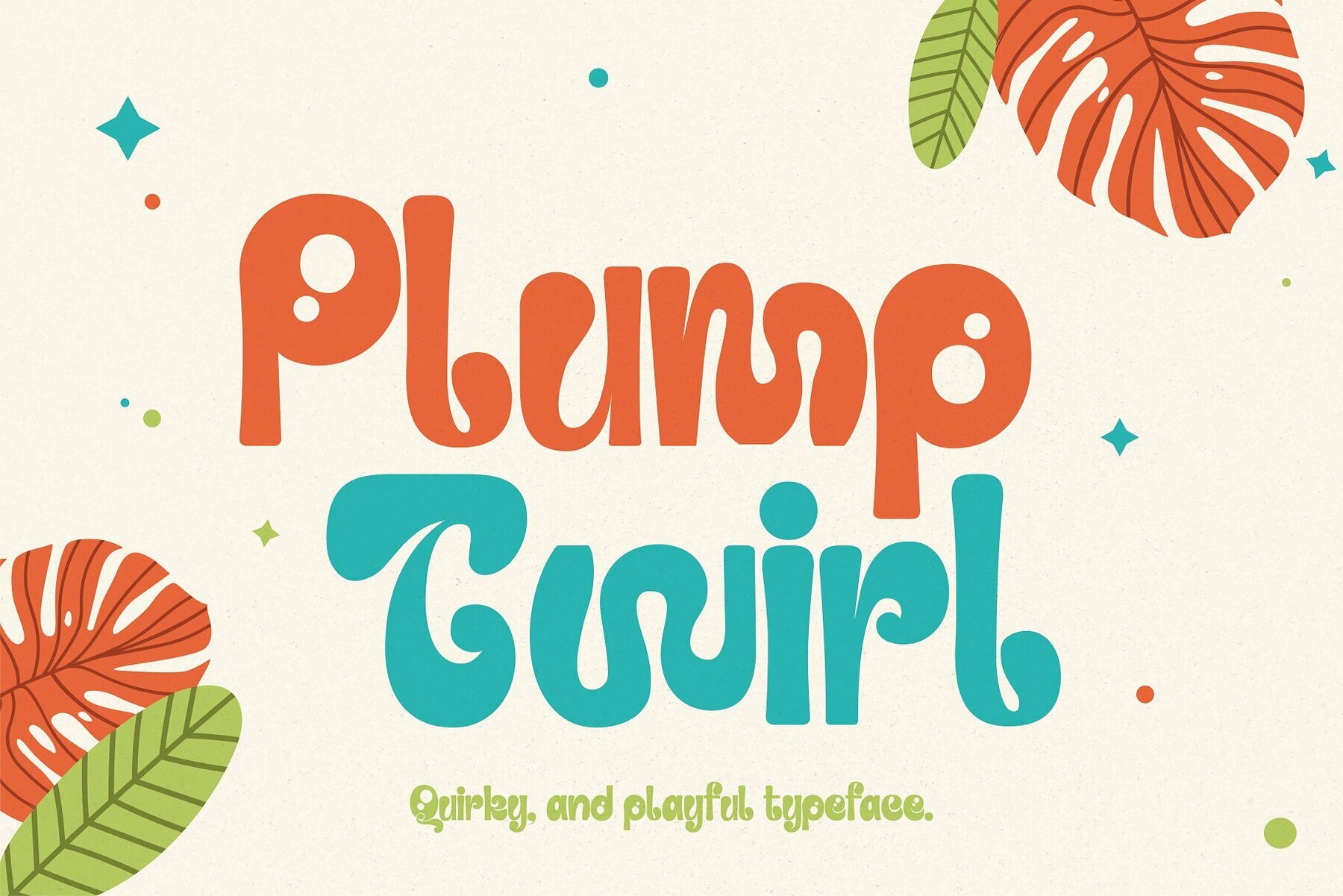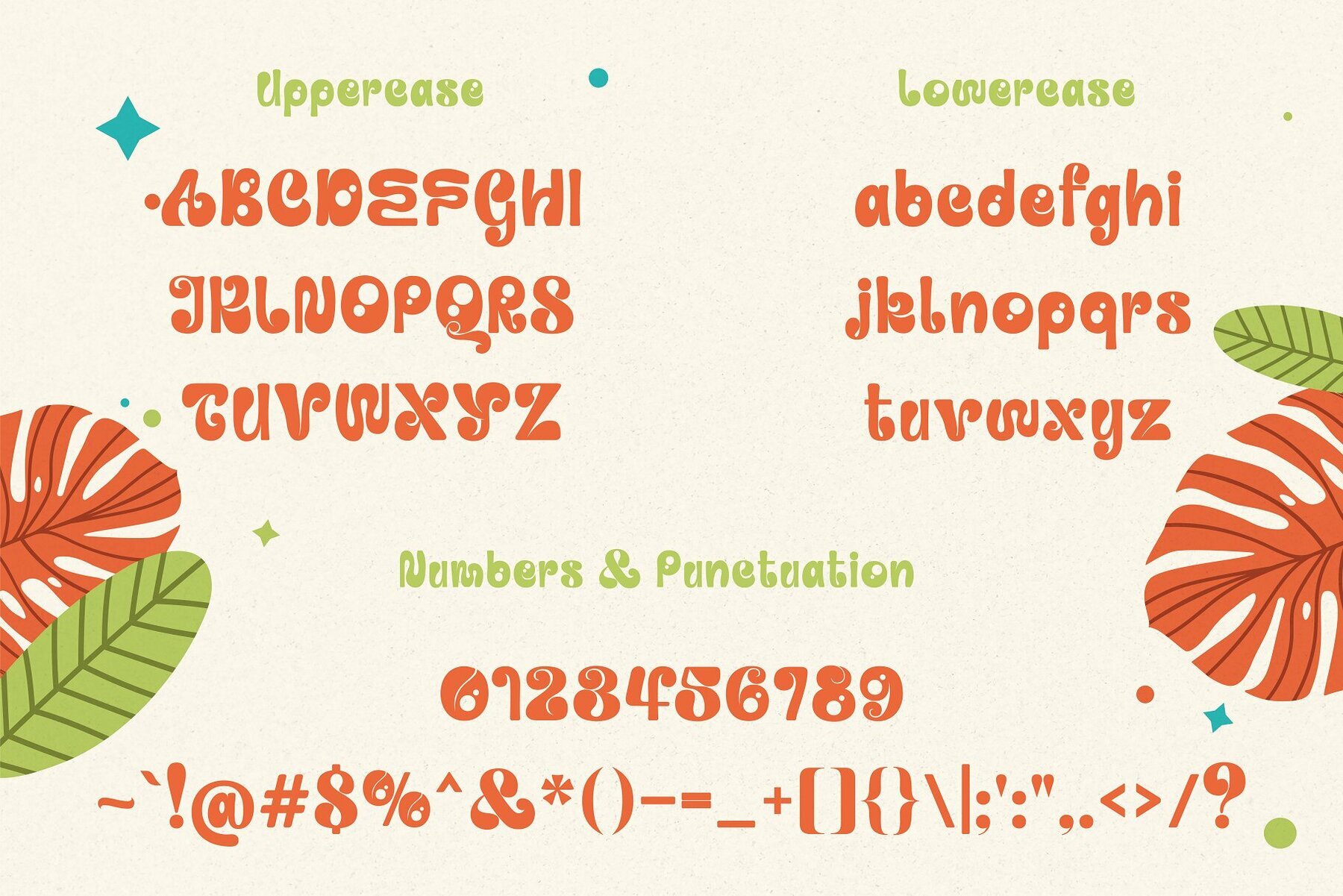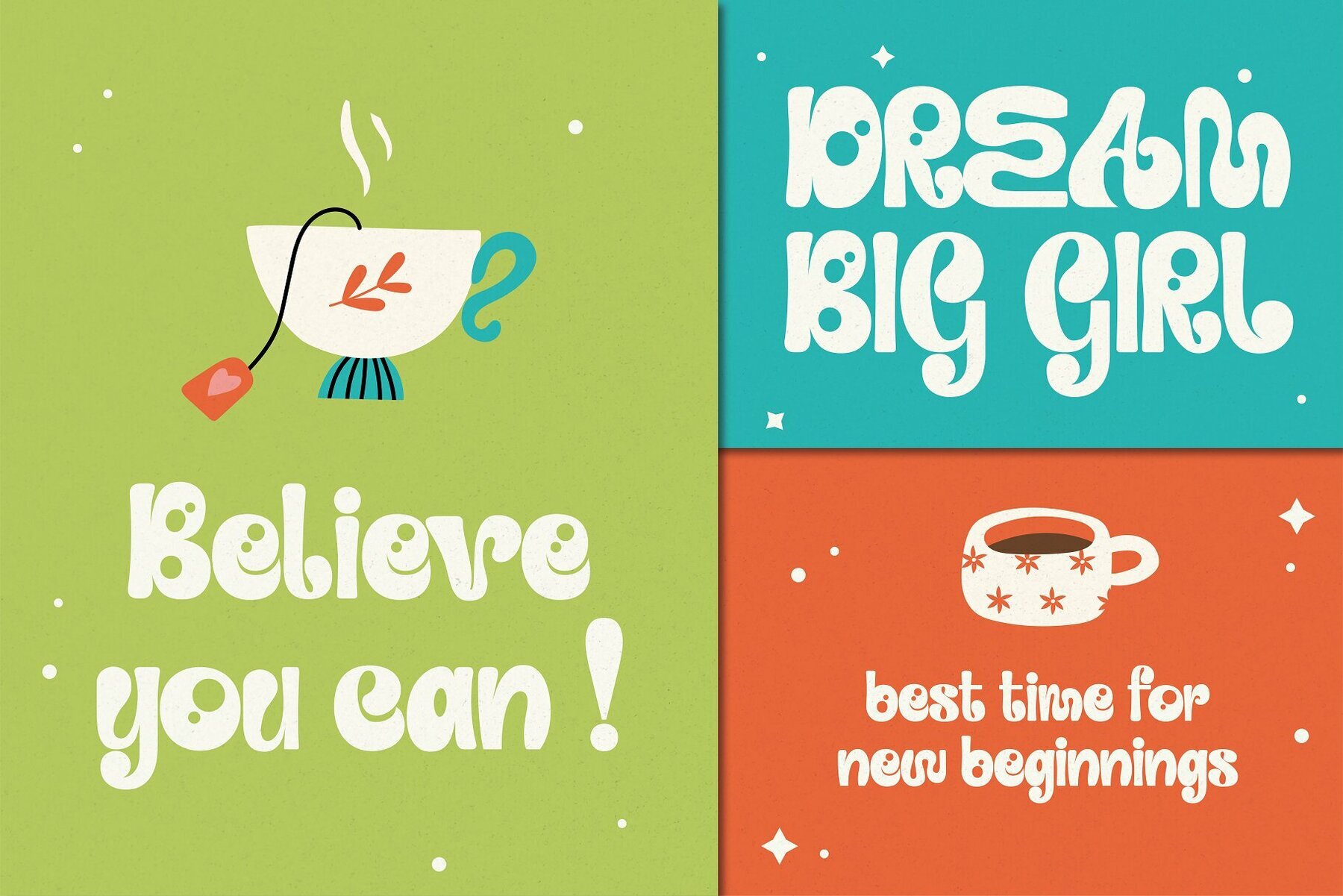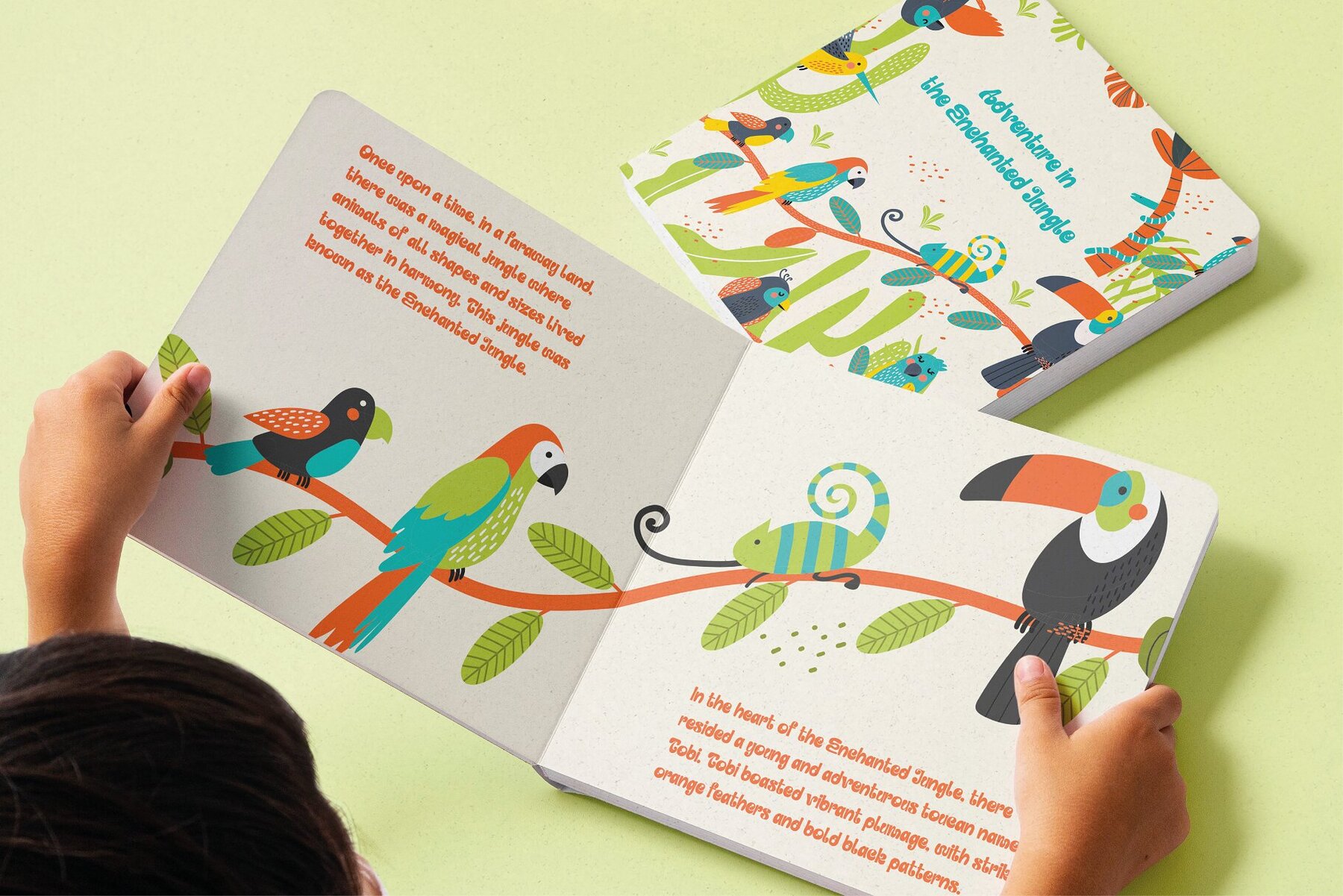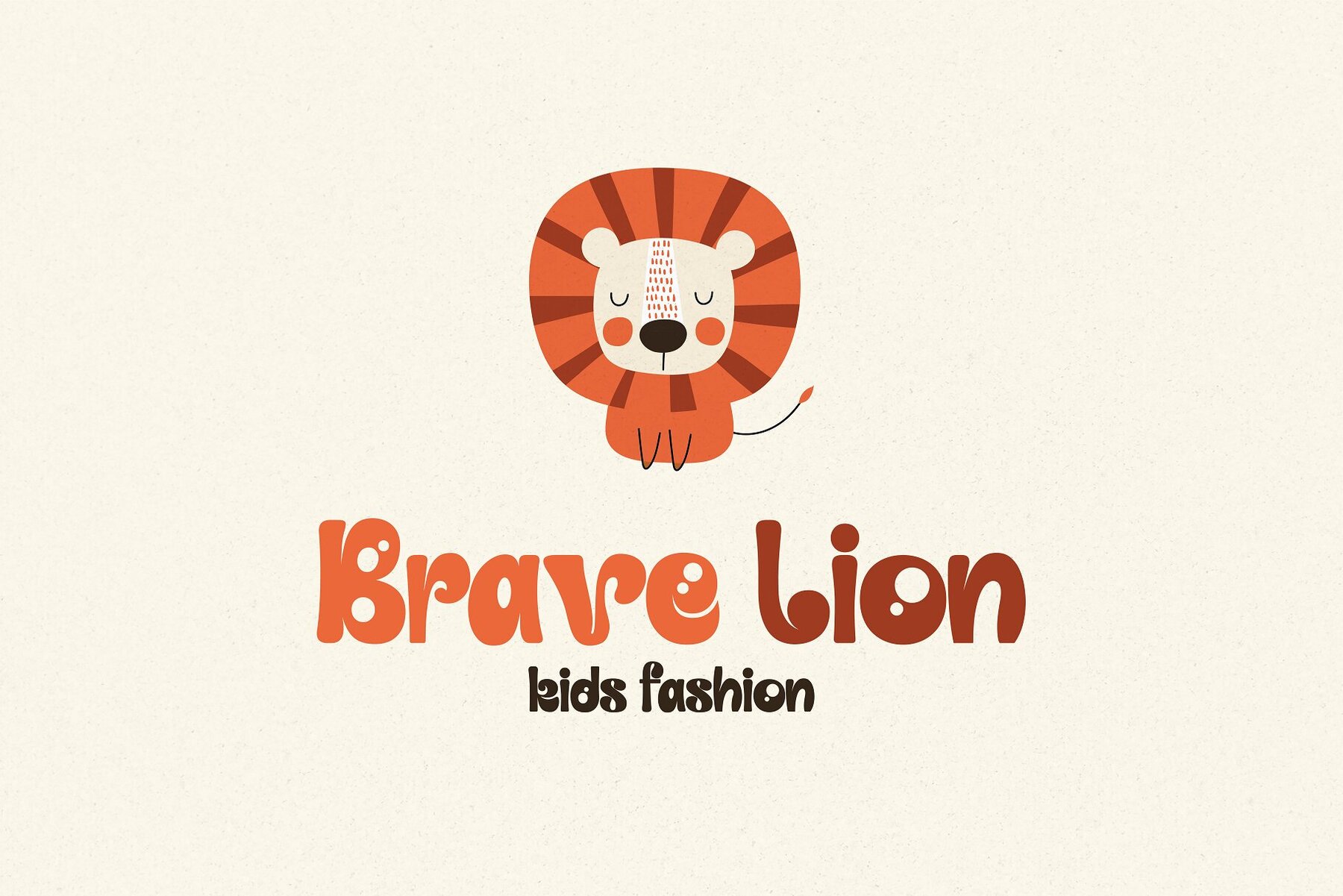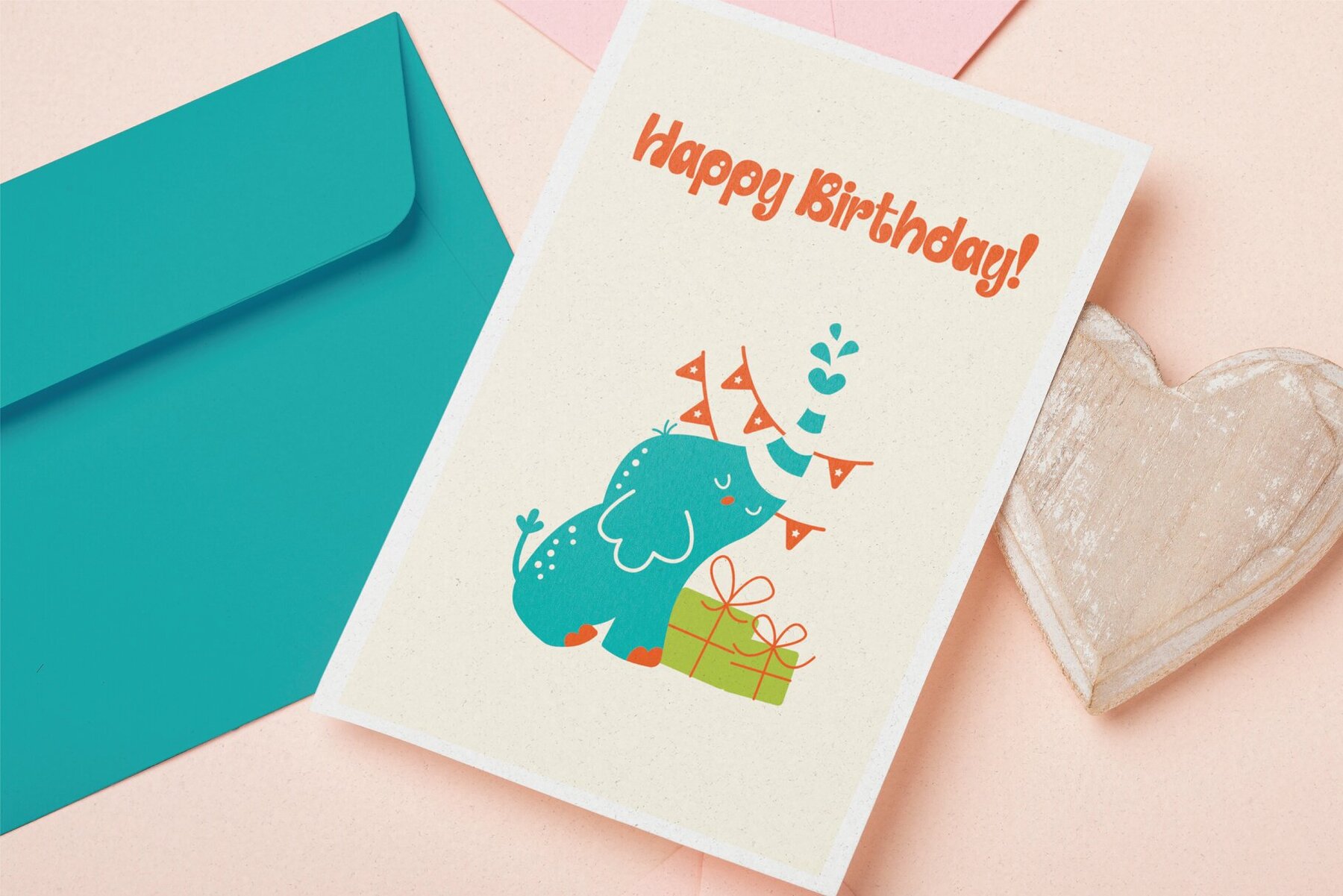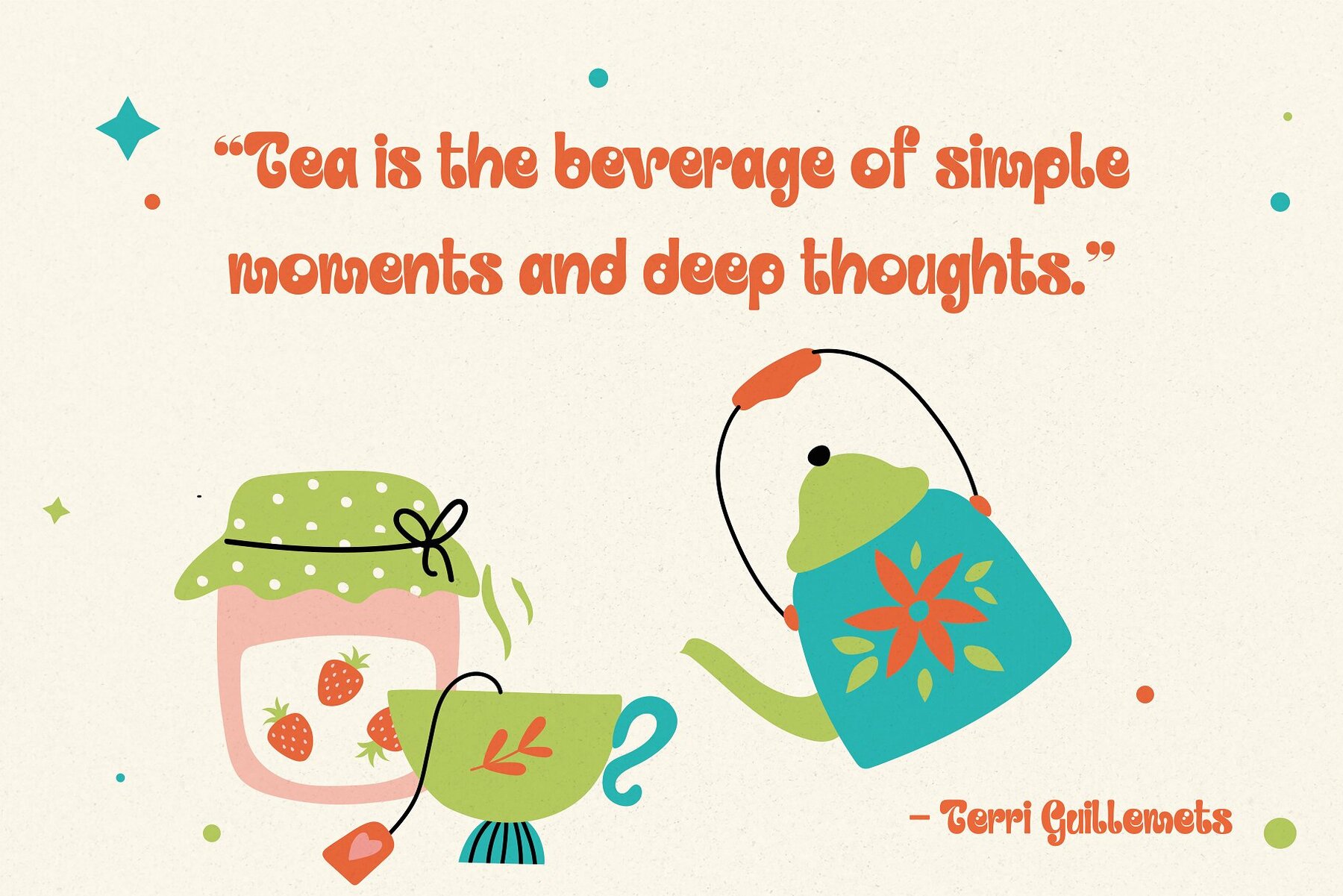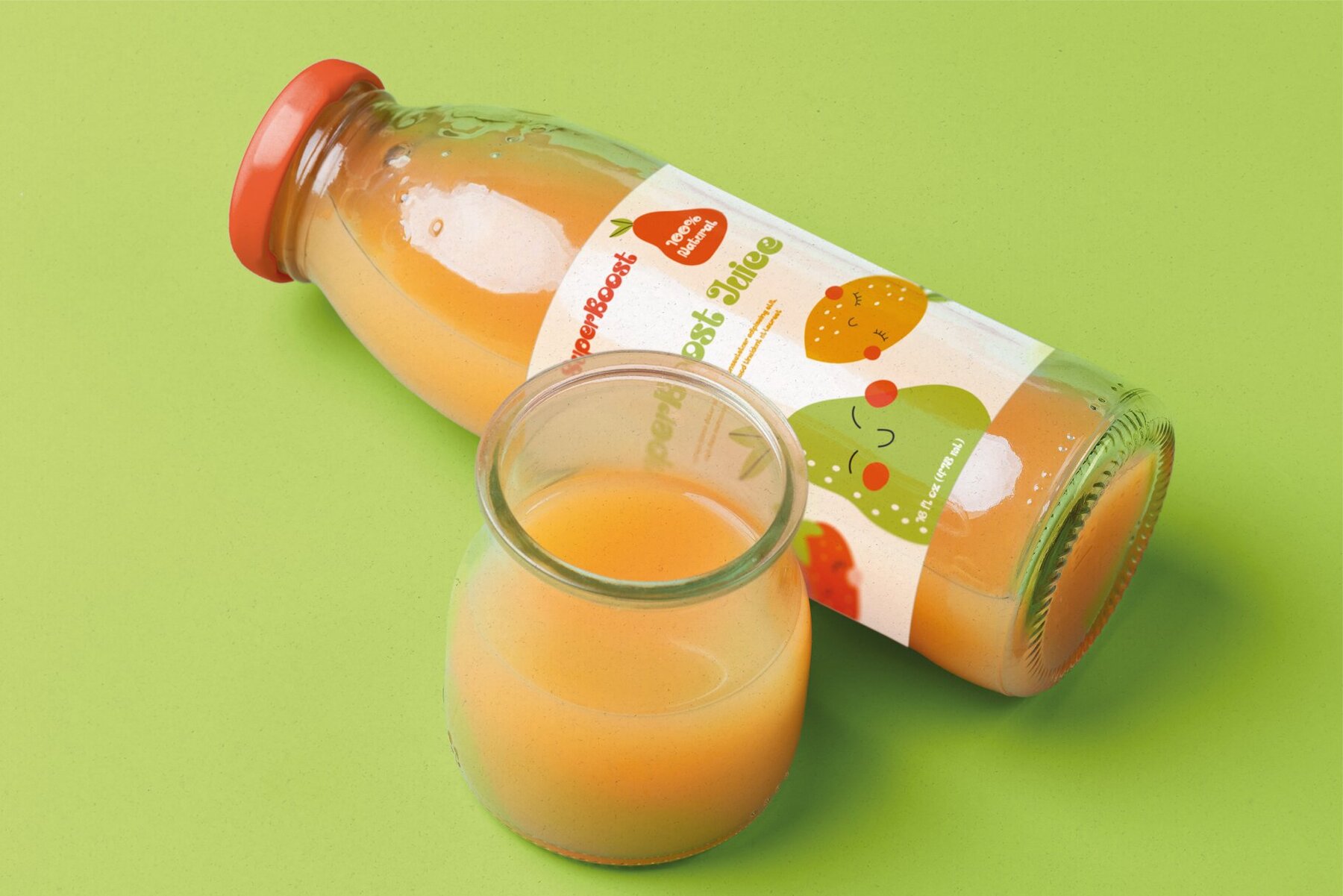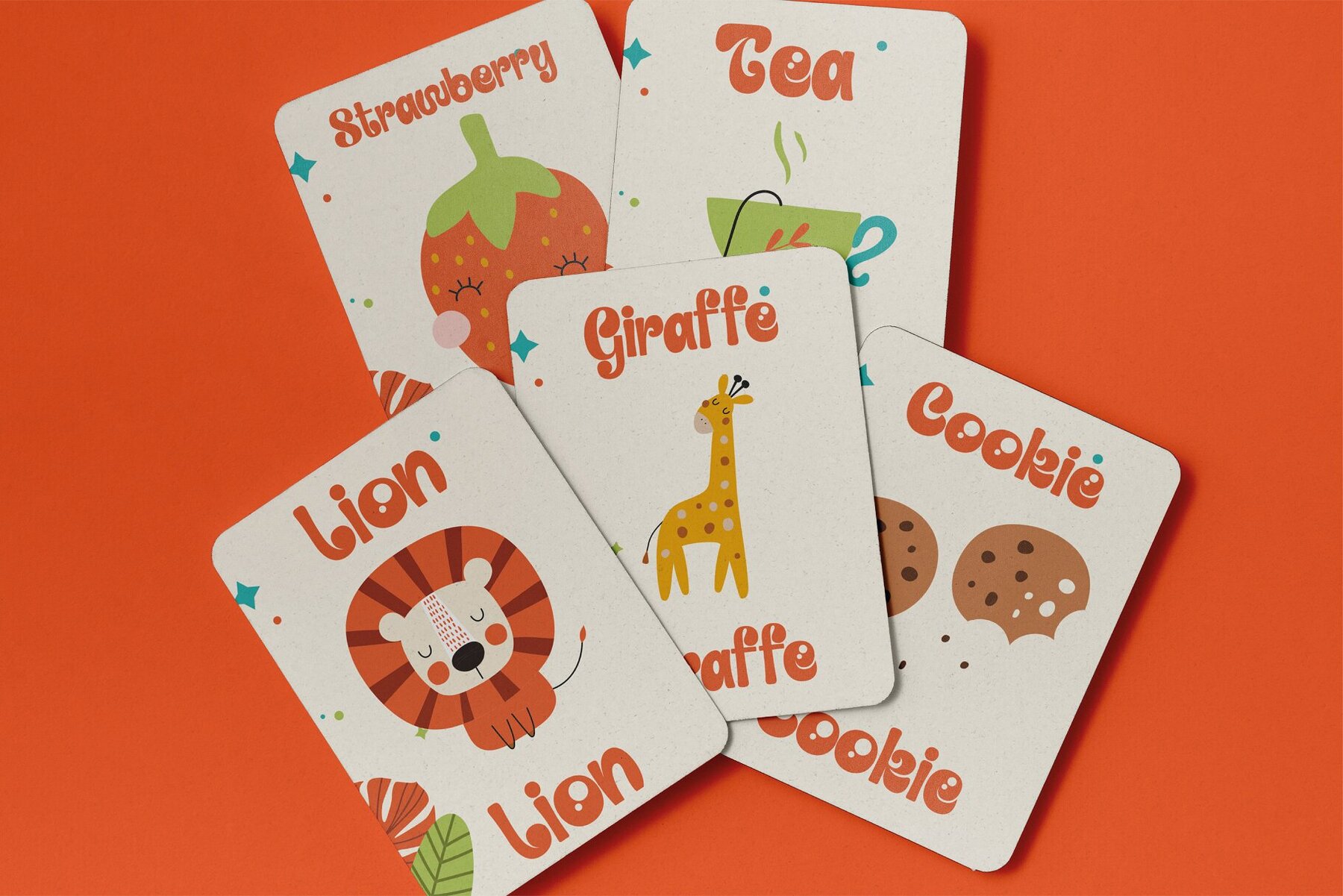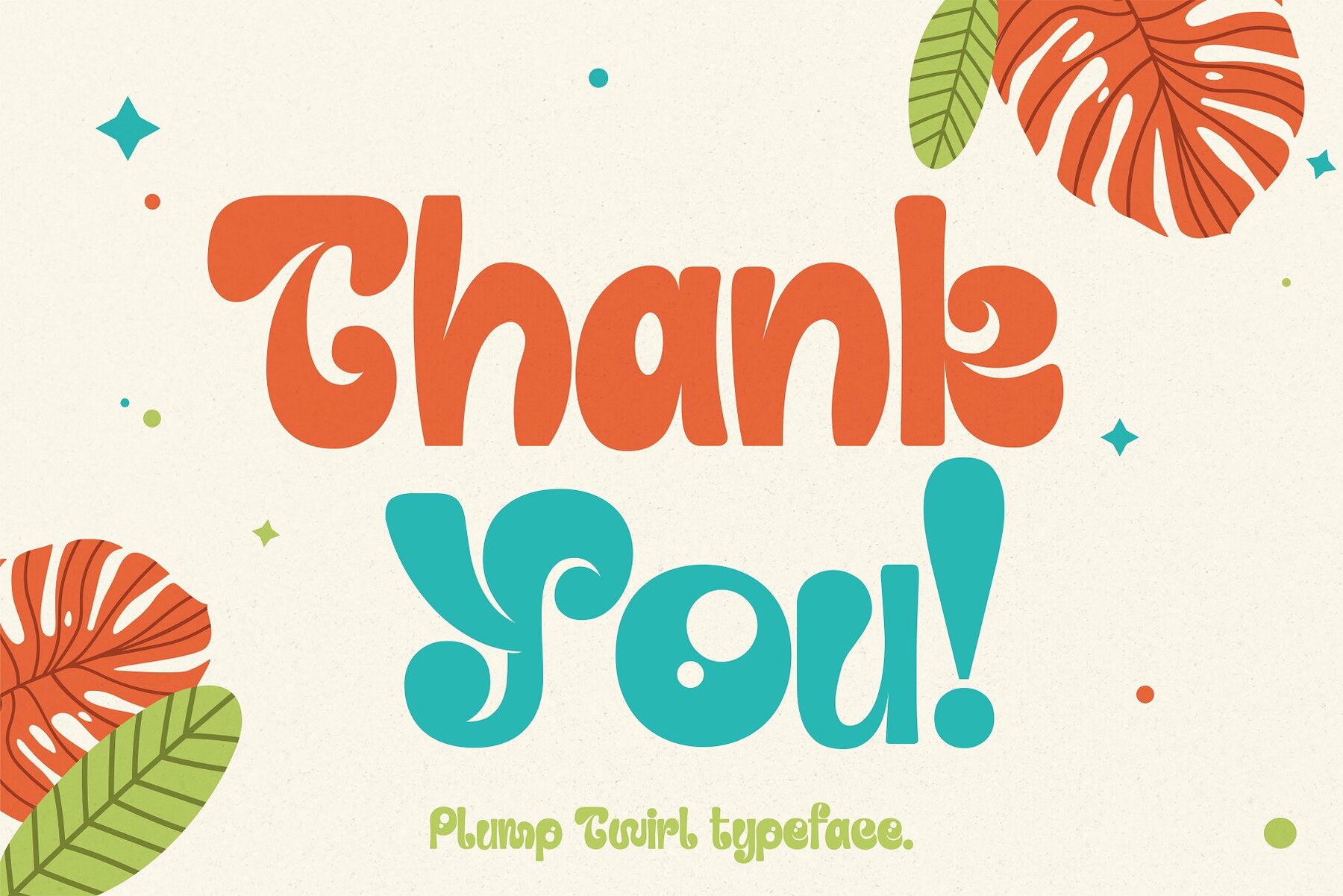
Plump Twirl Font
Plump Twirl Regular
Step into a world of whimsy with Plump Twirl, the ultimate typeface for young imaginations! Crafted with joy and jubilation in every curve, this adorable decorative font is the perfect sprinkle of magic for projects dedicated to kids, children, and toddlers. With letters that seem to dance and twirl like balloons on a string, Plump Twirl embodies the playful spirit of childhood. Its chunky, cheerful characters exude warmth and friendliness, making every word feel like a hug from a favorite stuffed toy. The gentle swirls and buoyant design capture the essence of innocent giggles, storybook tales, and the boundless energy of little feet. Plump Twirl isn’t just a font; it’s an embrace of the vibrant colors of youth. Ideal for children’s books, event invitations, nursery decor, and any design endeavor that seeks to communicate pure, childlike wonder, this typeface is your passport to a universe where every day is a new adventure. Choose Plump Twirl and let your designs sing lullabies, narrate fairy tales, and whisper dreams into the ears of the young and the young-at-heart.